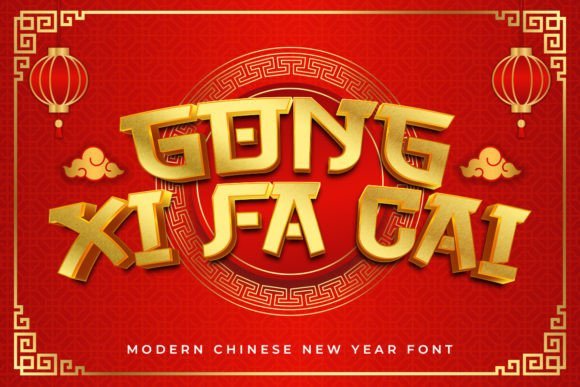
Introduction to Gong Xi Fa Cai Font
Gong Xi Fa Cai is a beautifully crafted display font that embodies the spirit and elegance of traditional Chinese calligraphy.
This font is perfect for celebrating the Lunar New Year, cultural festivals, and any project that requires a touch of Chinese heritage and festivity With its bold strokes and intricate design, Gong Xi Fa Cai adds an authentic and festive flair to your designs, making it ideal for posters, banners, invitations, greeting cards, and more.
Key Features of Gong Xi Fa Cai Font
Why Choose Gong Xi Fa Cai Font?
Gong Xi Fa Cai Font offers exceptional quality and versatility, making it a valuable addition to your design toolkit. Whether you’re creating for personal projects or commercial use, Gong Xi Fa Cai Font delivers professional results.